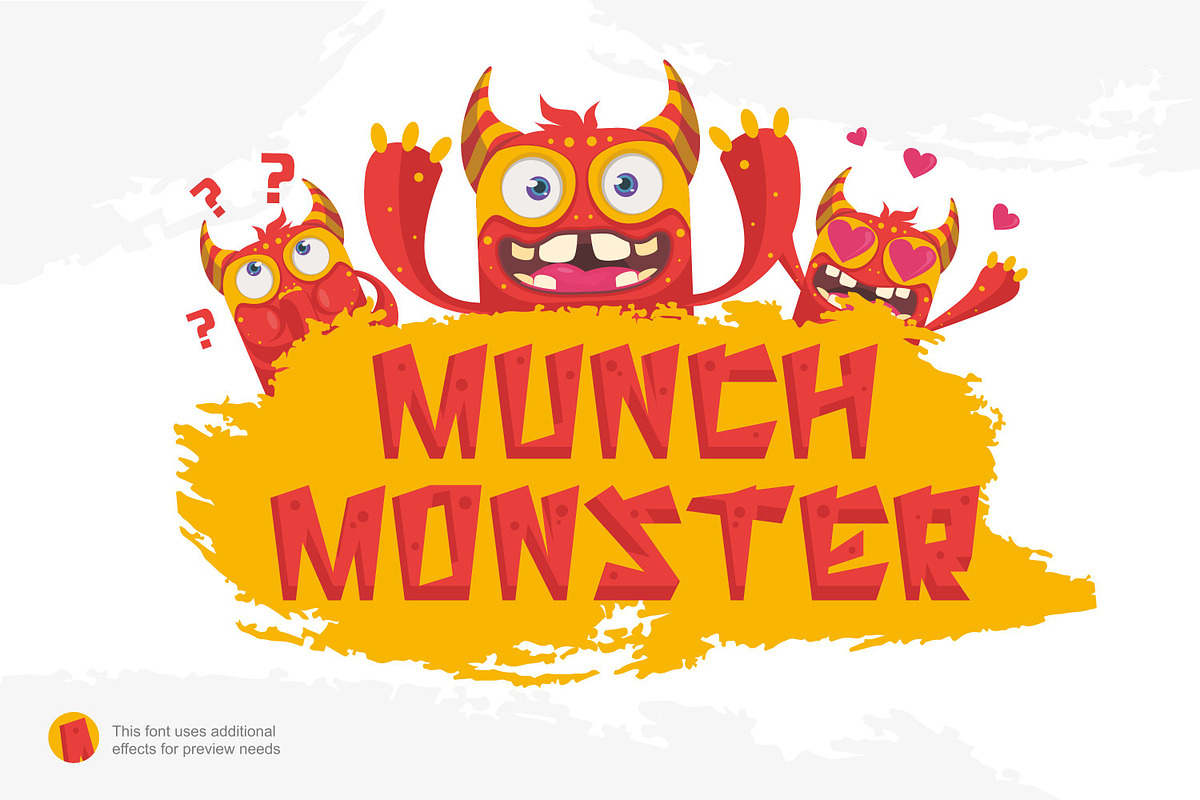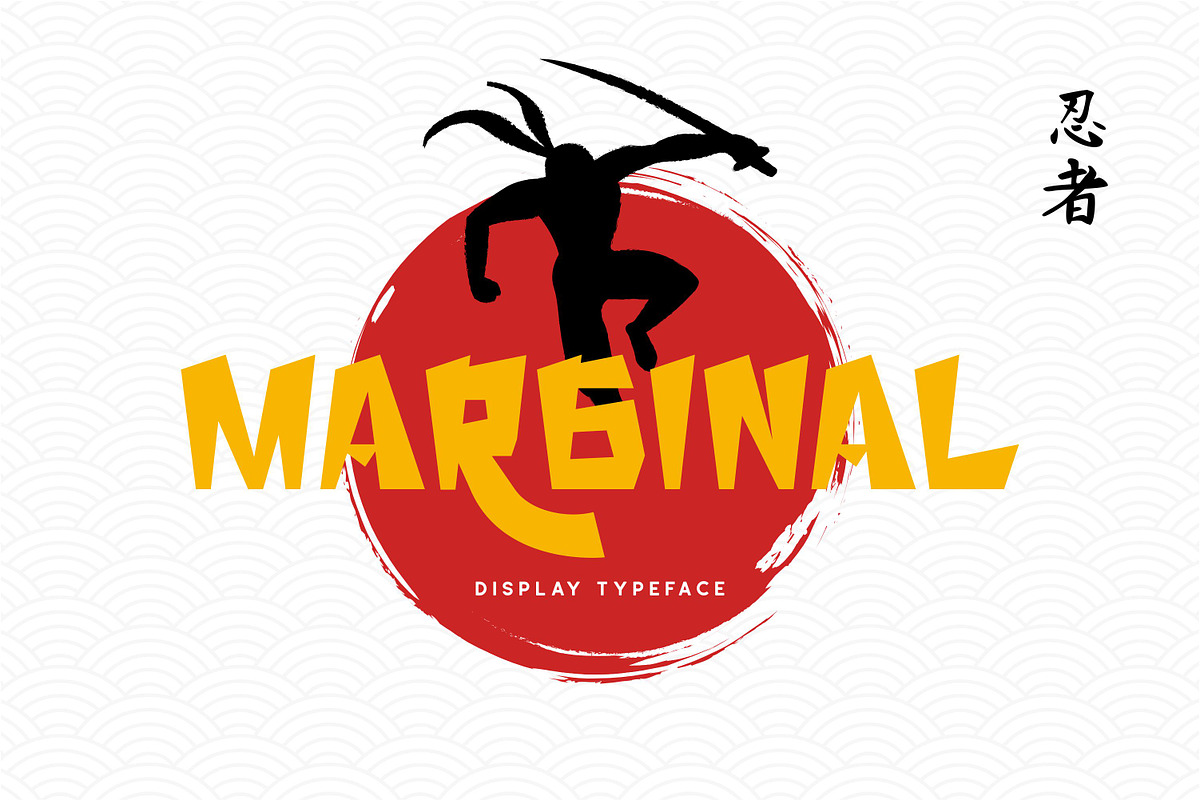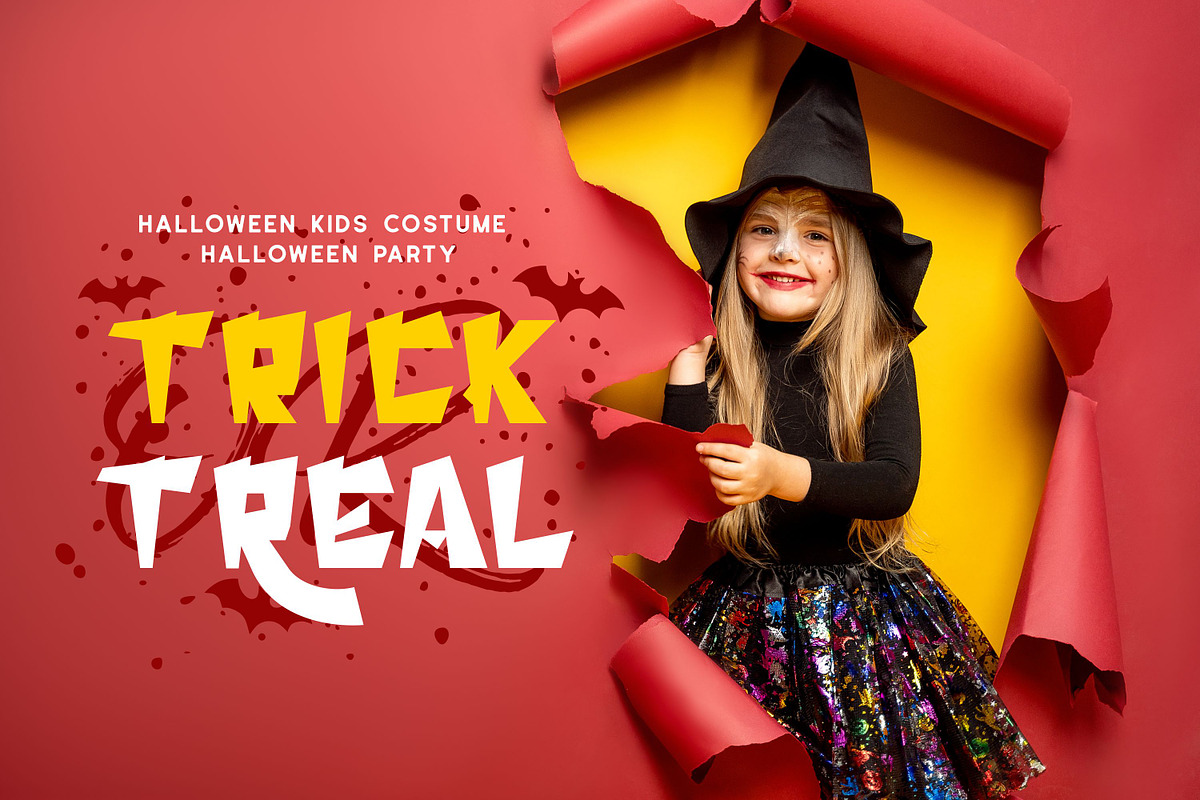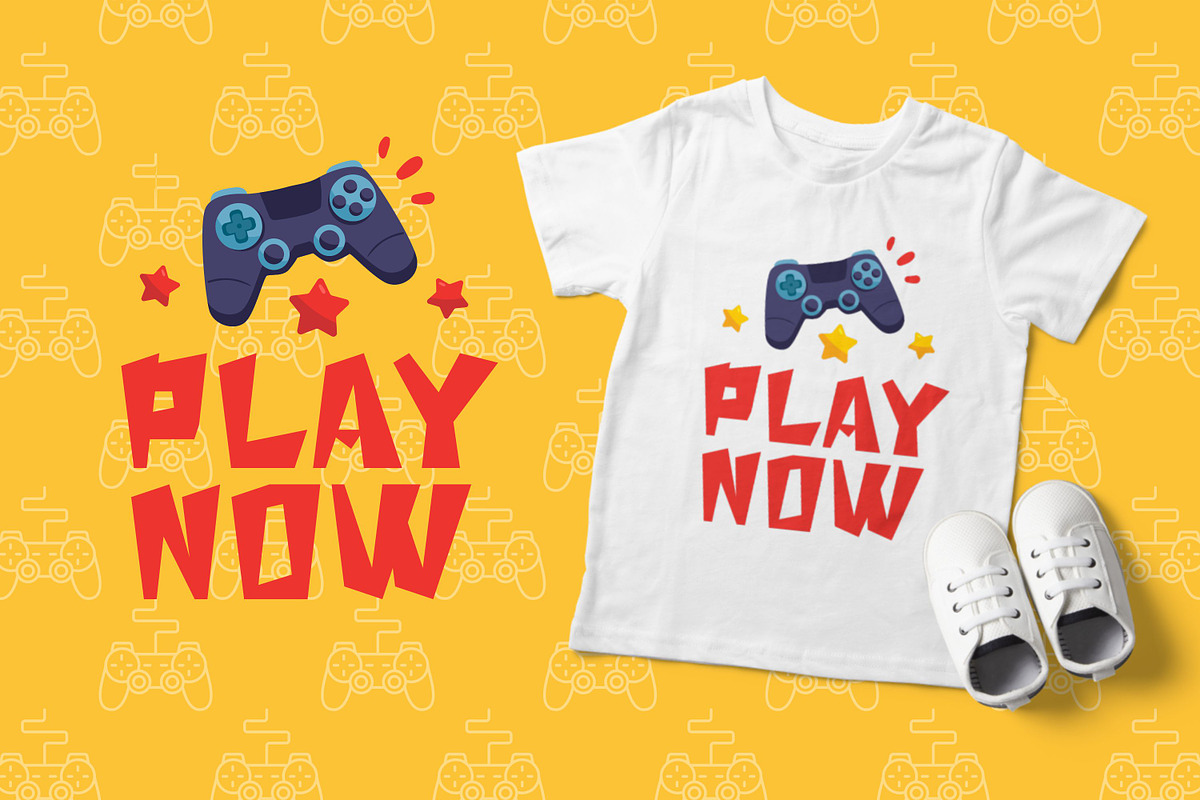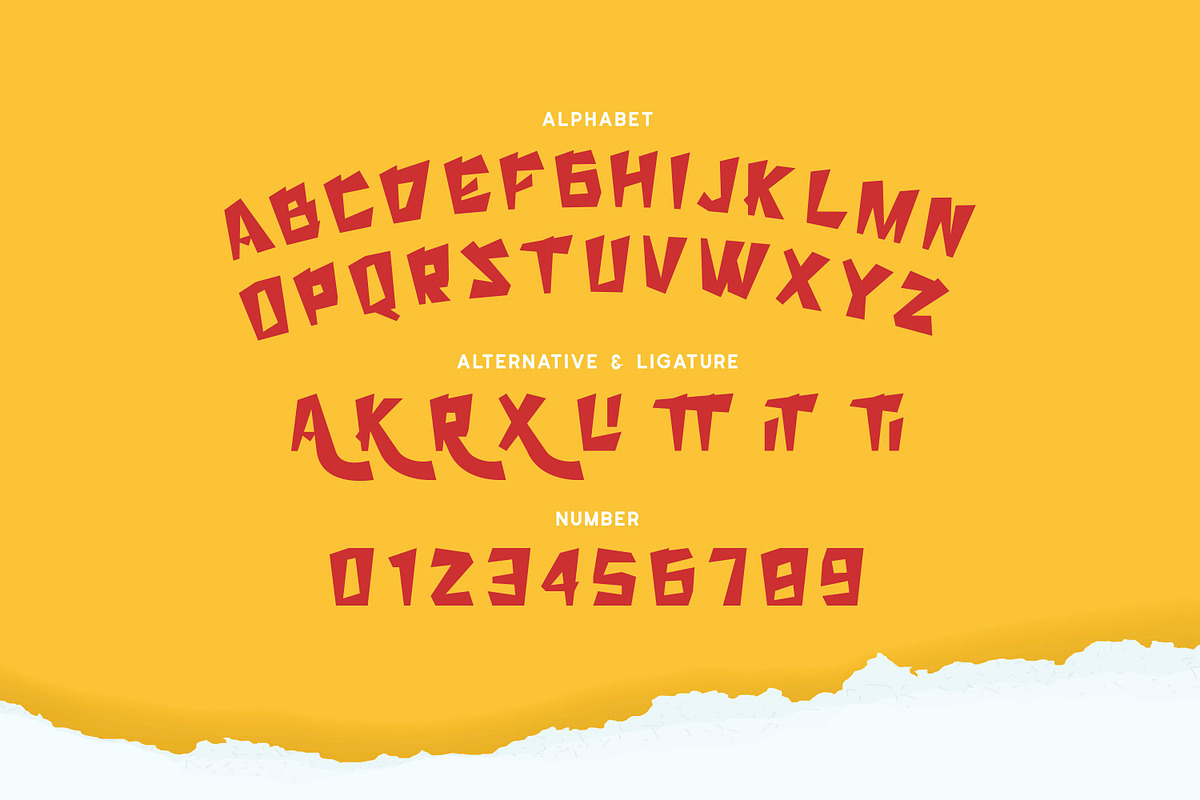
Marginal - Display Typeface
Marginal display font it was inspired by japanese look. Marginal is a great display font with incredibly versatile usage. Marginal can make your design look stand out and fun. Marginal font works great for logotype, packaging, branding, heading, poster, apparel, title, and much more. Marginal also suitable for sports themed designs, as well as comics, cartoons or any kids’ content and anywhere you want to communicate a fun message.